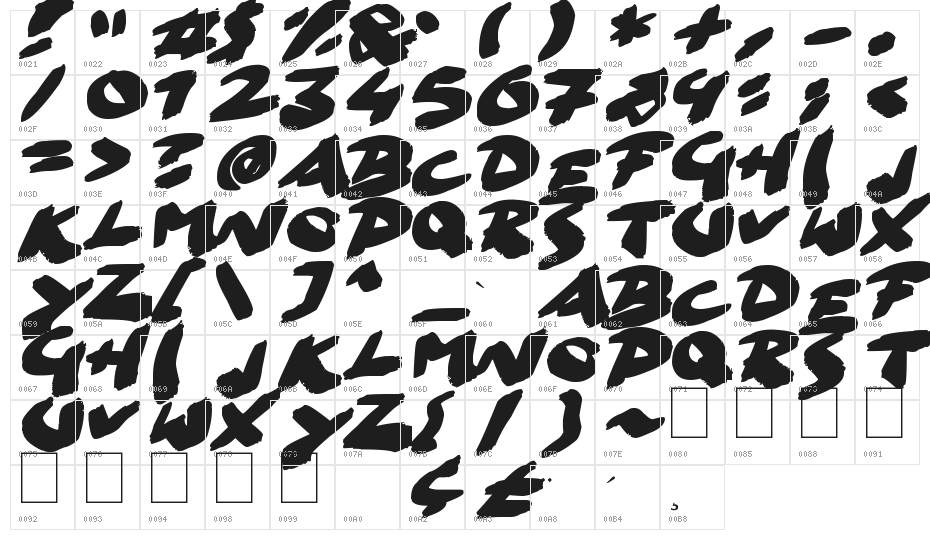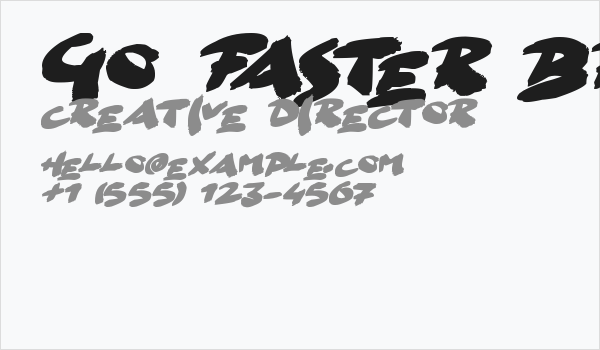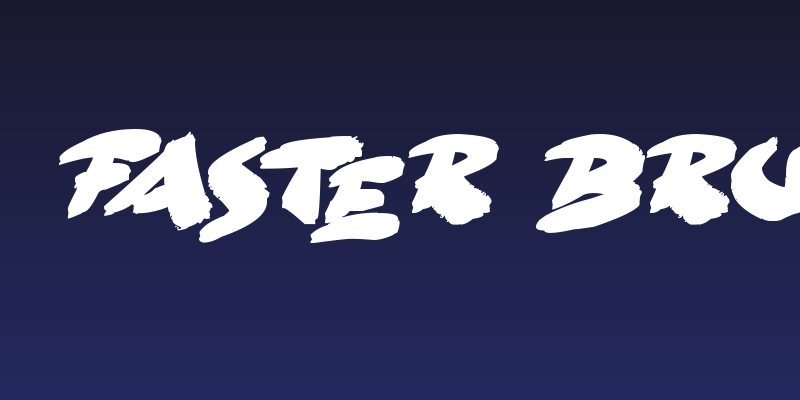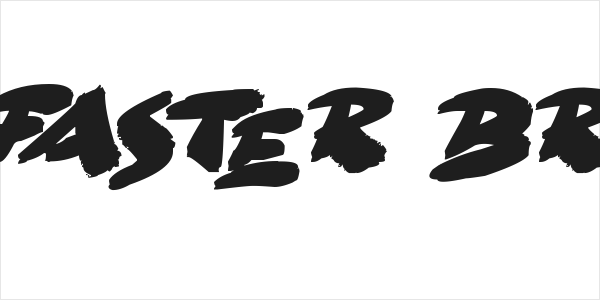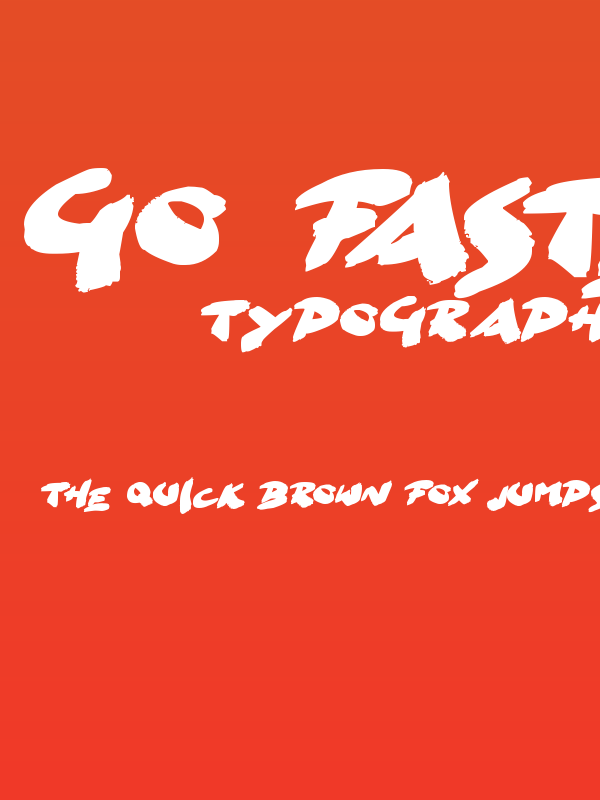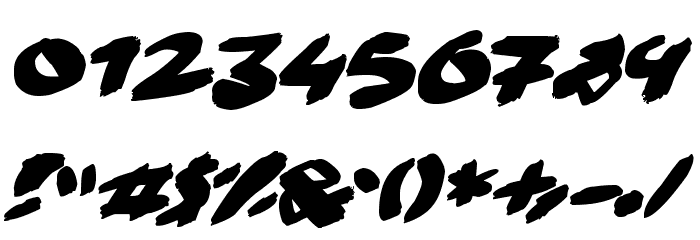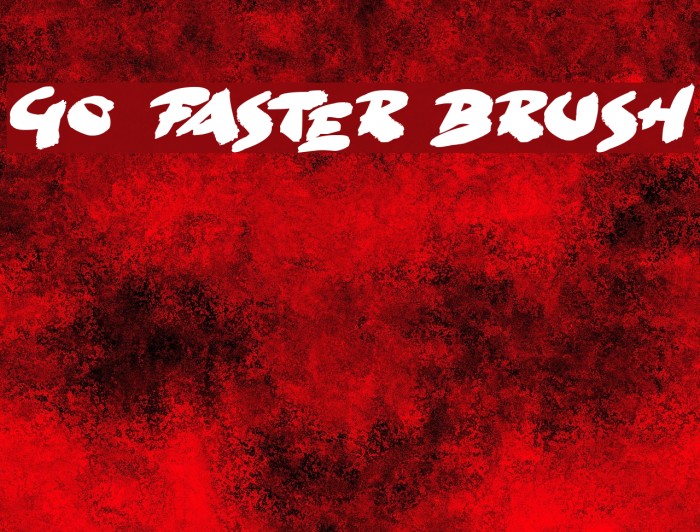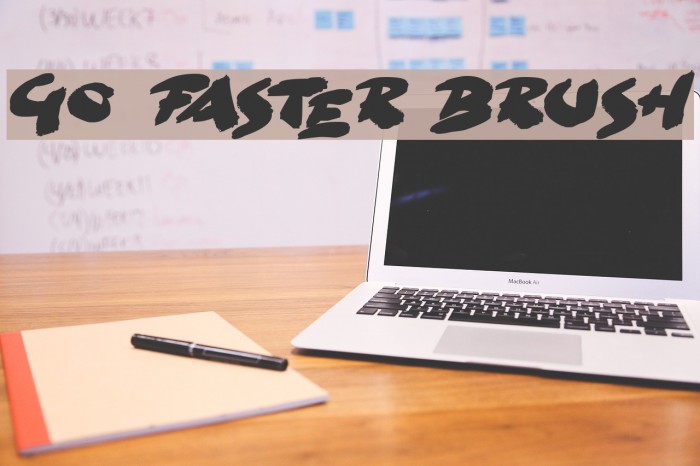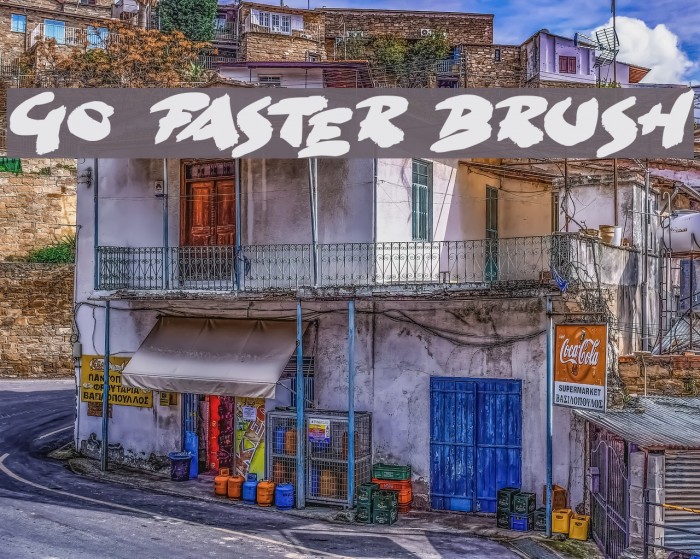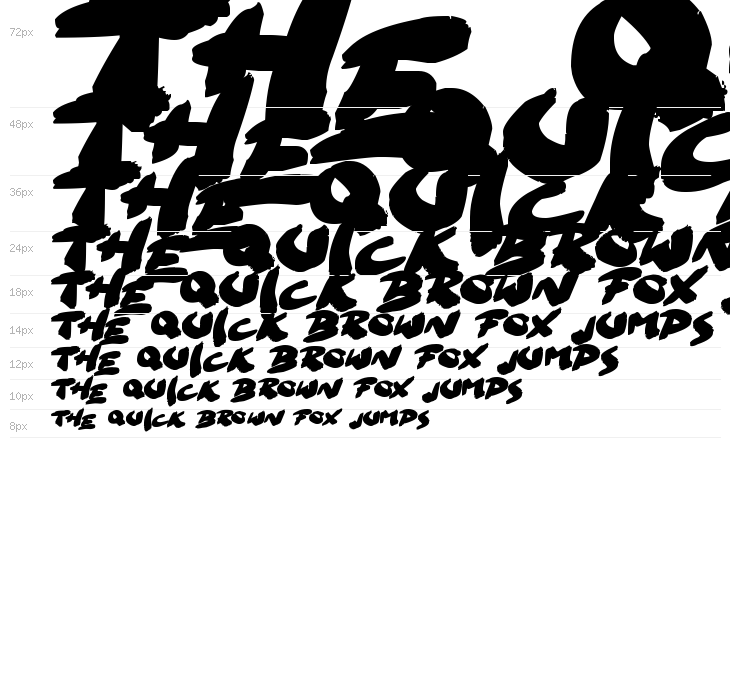
Go Faster Brush Font
Go Faster Brush Description
This font exudes a dynamic and energetic style, characterized by its bold, brush-like strokes that convey a sense of speed and movement. The letters are crafted with a rough, hand-painted appearance, giving it a raw and expressive feel. The uppercase and lowercase letters maintain a consistent style, with exaggerated curves and angles that enhance its lively aesthetic. The numbers and special characters follow the same design principles, ensuring a cohesive look across all glyphs. This font is ideal for projects that require a bold statement, capturing attention with its striking and unconventional design.